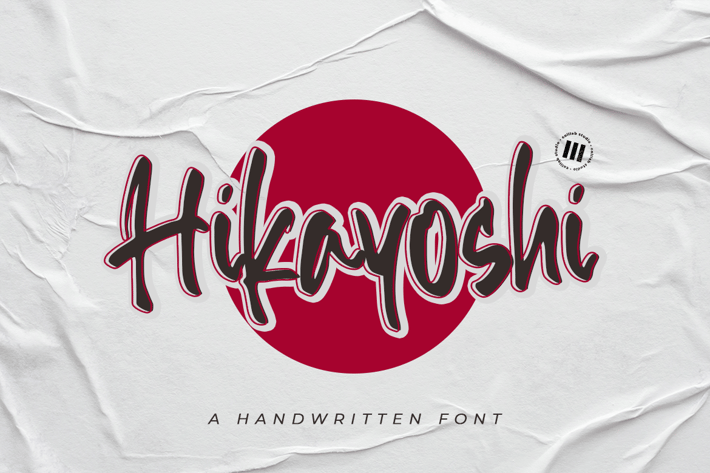
Hikayoshi - An Inky Handwritten Font
Hikayoshi is an inky handwritten font that is suitable for design projects; playful theme, Japanese theme, logo, branding, poster, quotes, display, beautiful stationary art, eye-catching social media posts, and cute greeting cards, and any other designs.
Some Ligatures
Some Underline Swashes (type c1 until c12)
Full uppercase and lowercase glyphs
Numbers, punctuations, and symbols